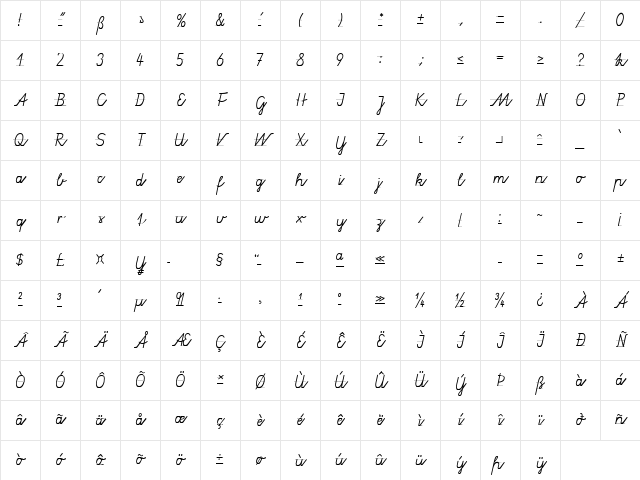
Complete Gruenewald VA 3. Klasse Regular glyph index. Displaying only characters natively supported by Gruenewald VA 3. Klasse Regular font.
Gruenewald VA 3. Klasse is a composed and adaptable typeface that performs quietly and consistently across a wide range of design contexts.
Who designed the Gruenewald VA 3. Klasse Regular font?
This font was published by Peter Wiegel, nach dem Schriftentwurf von Dr. H. Grd. Check the technical specs section for copyright and designer details.